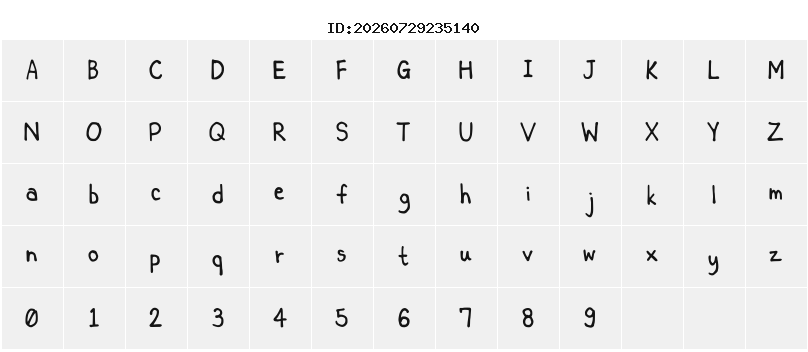
Key's comic font 1 Preview
• Font Name: Key's comic font 1
• Full Font Name: Key's comic font 1
About Key's comic font 1.ttf
Key's comic font 1.ttf is a modern, elegant sans-serif font designed for ultimate readability and visual harmony. Perfect for branding, headlines, web design, and print materials.